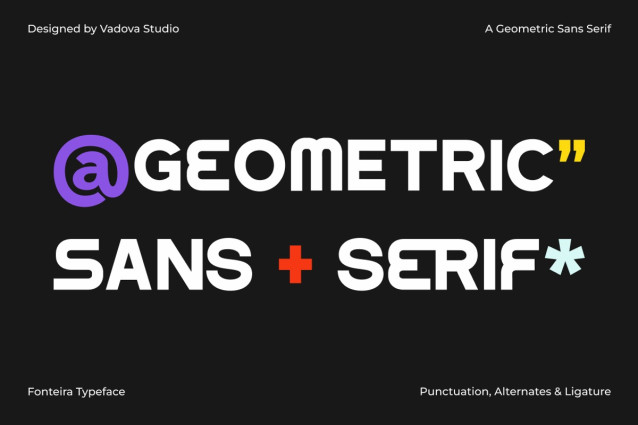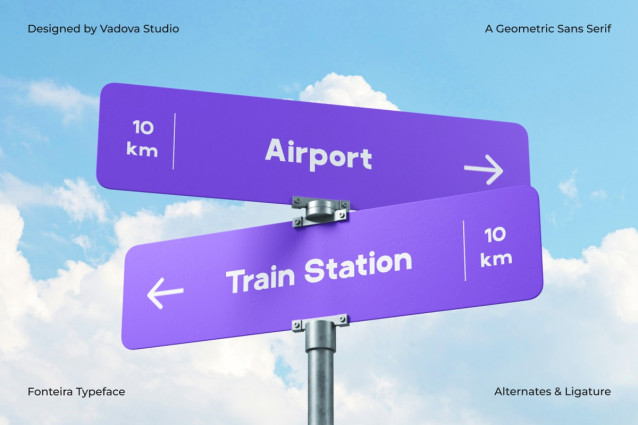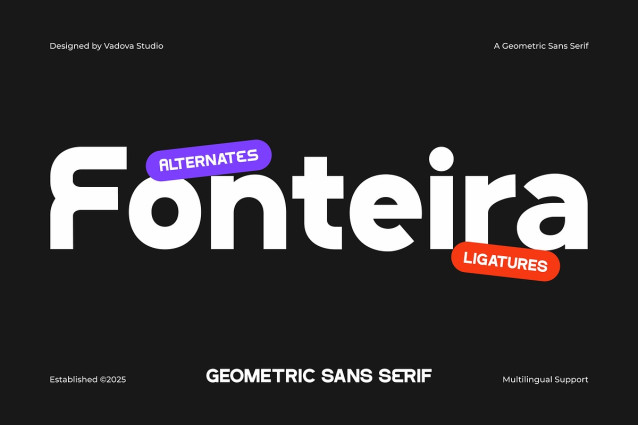
Fonteira Font
Fonteira Font is a bold and modern geometric sans serif font designed for high-impact visual communication. With clean, minimal lines and powerful structure, this typeface brings clarity and edge to your creative work. It includes full uppercase and lowercase characters, numerals, punctuation, multilingual support, and a rich set of stylistic alternates and ligatures to expand your design possibilities.
Fonteira is crafted for creative professionals who want to make a visual statement. Its geometric style and bold presence make it ideal for startups, tech brands, editorial headlines, and digital campaigns. Whether you’re designing a website interface, mobile app, poster, or brand logo, Fonteira adds structure and modernity to any layout.